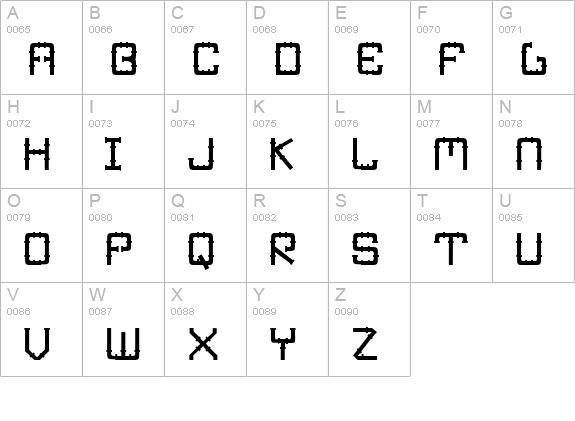
IronPipe Font Details
IronPipe is a bold and sturdy font that exudes strength and resilience. With its robust letterforms and industrial-inspired design, this typeface is perfect for projects that require a no-nonsense and authoritative feel. The sharp edges and clean lines of IronPipe give it a modern and edgy aesthetic, making it ideal for logos, headlines, and titles. But what sets IronPipe apart from other fonts is that it is not only powerful, but also free. That's right, this incredible typeface is freely available to download at FontsMarket.com. Whether you're a professional designer or a hobbyist, IronPipe gives you the opportunity to add a touch of rugged sophistication to your work without breaking the bank. Designed with versatility in mind, IronPipe is suitable for a wide range of applications. Its bold presence makes it perfect for advertising materials, packaging, and branding projects, while its legibility ensures that your message will be easily understood. Additionally, IronPipe's strong and distinct character makes it a standout choice for posters, signage, and any other application where impact is essential. With IronPipe, you can effortlessly convey a sense of power, reliability, and durability. Its unique blend of strength and style will make your designs stand out from the crowd, leaving a lasting impression on your audience. So why wait? Head over to FontsMarket.com and download IronPipe today, and start creating bold and impactful designs that make a statement.